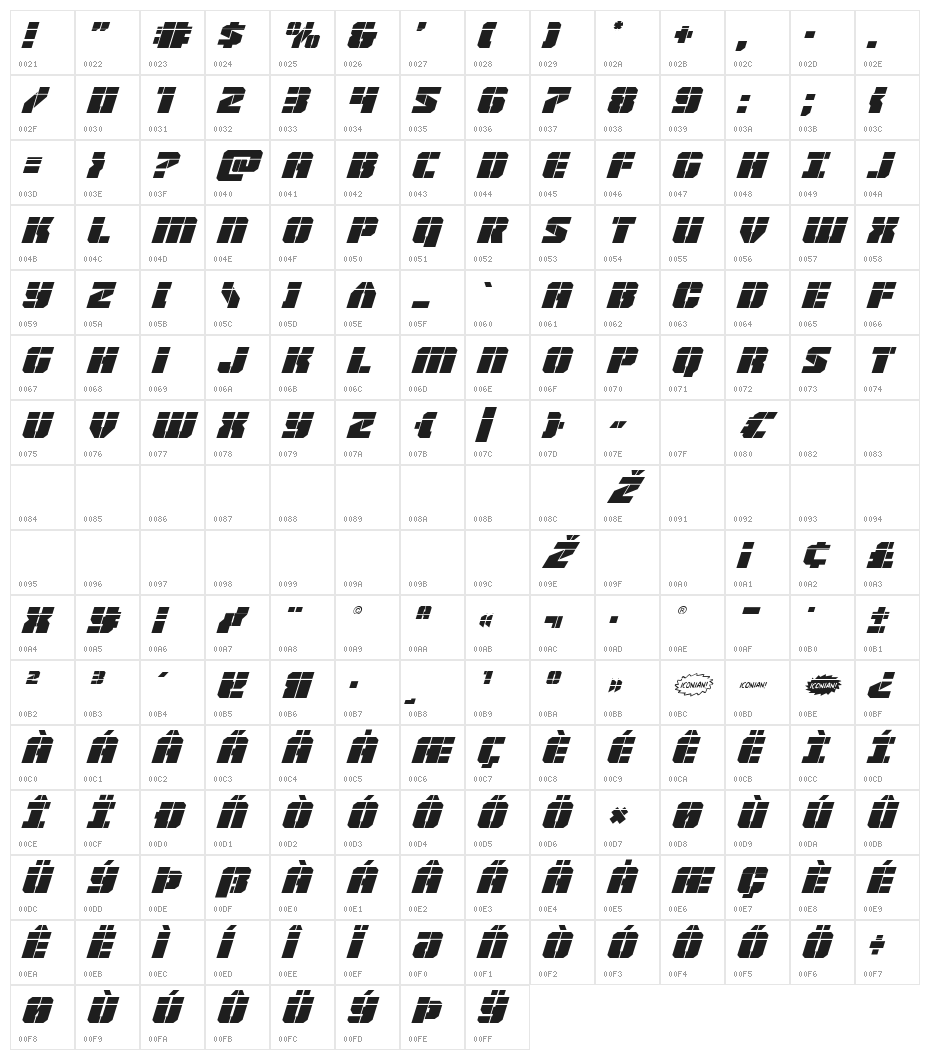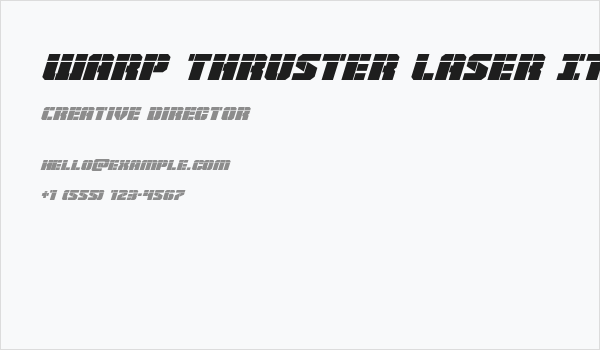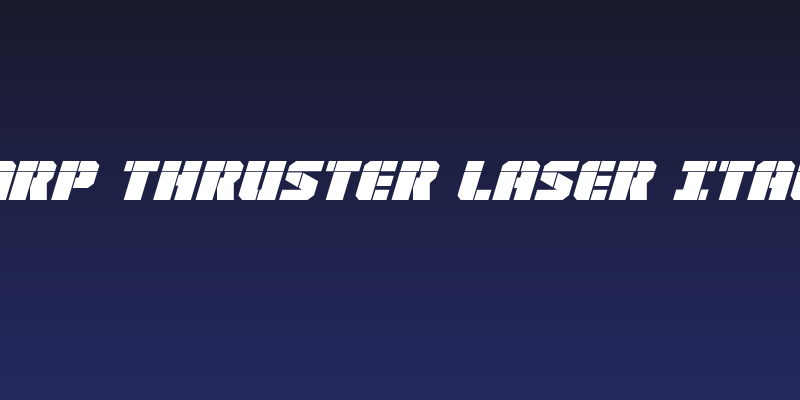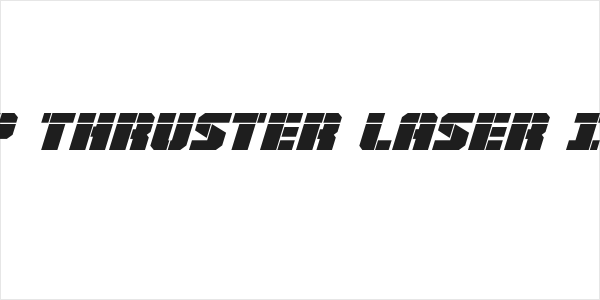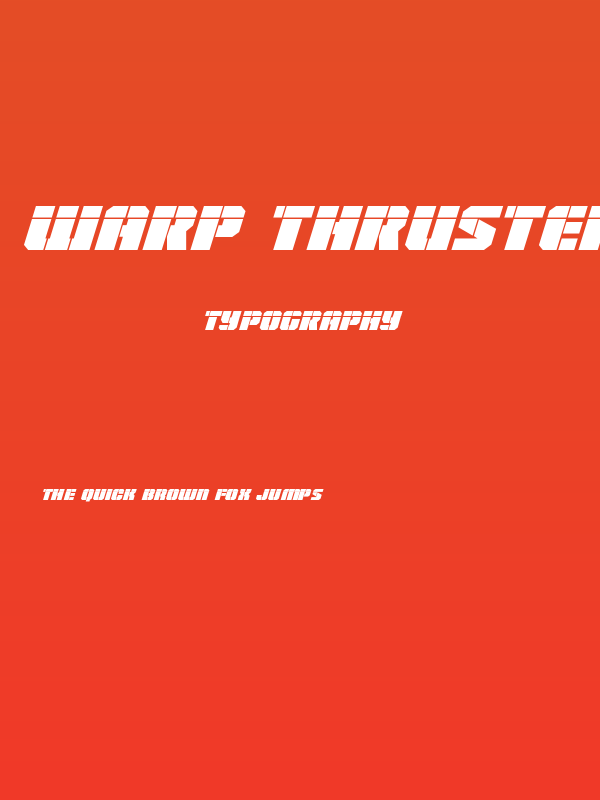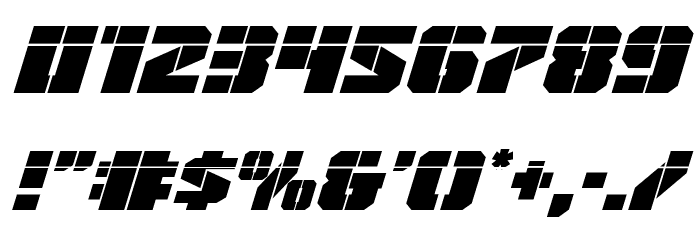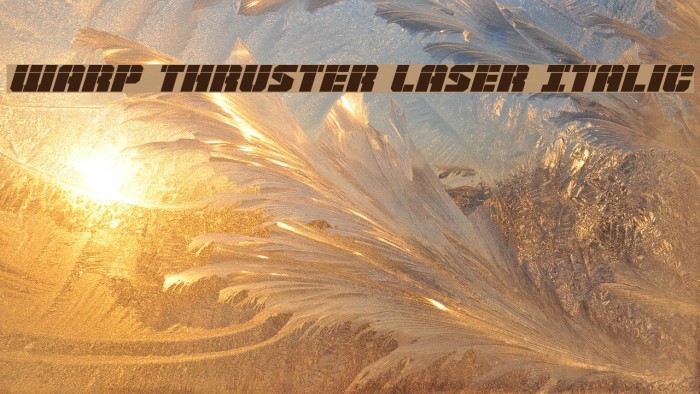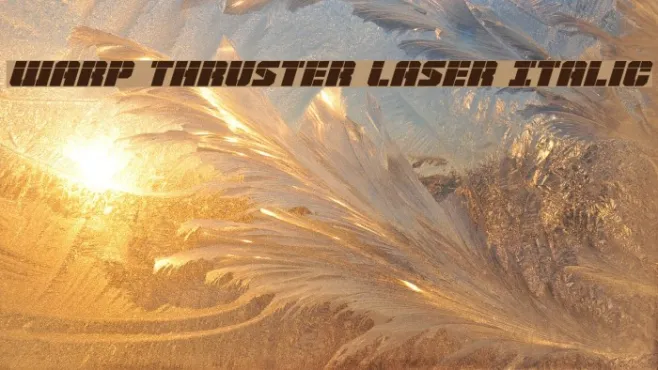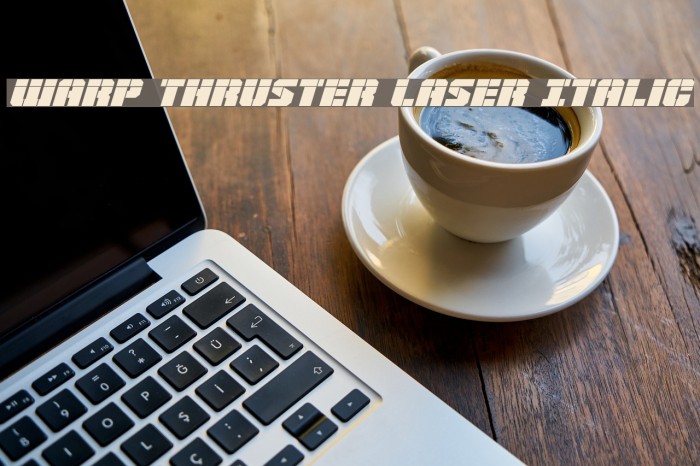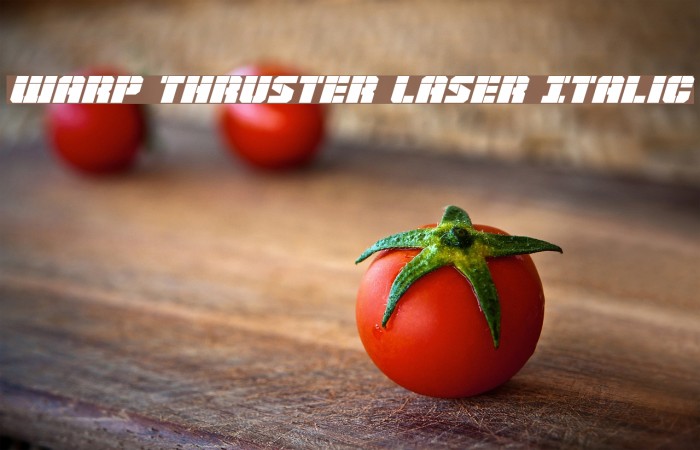
Warp Thruster Laser Italic Font
Warp Thruster Laser Italic Description
This font features a bold, futuristic design with a distinct italic slant, giving it a dynamic and forward-moving appearance. The characters are constructed with sharp, angular edges and a blocky structure, reminiscent of sci-fi aesthetics and digital interfaces. The uppercase and lowercase letters maintain a consistent style, with the lowercase being slightly smaller but equally impactful. The numbers and special characters follow the same design principles, ensuring uniformity across all glyphs. The font's strong geometric shapes and high contrast make it stand out, ideal for attention-grabbing headlines or branding that requires a modern, tech-inspired look.
| Proposed Projects | Ideal for sci-fi movie posters, tech company branding, video game titles, and futuristic event flyers. |